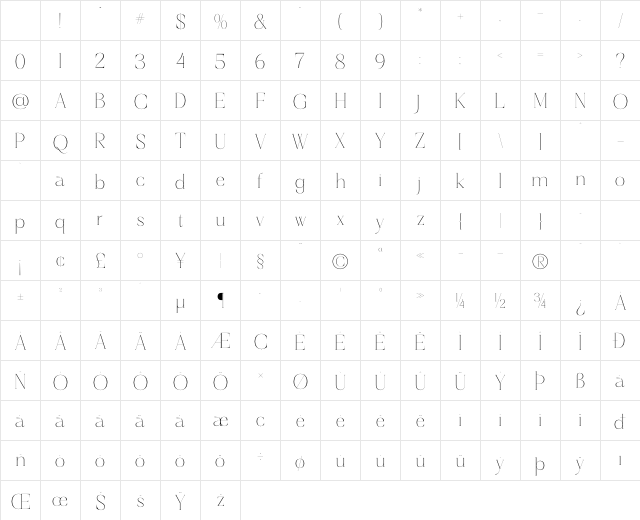
Complete Haloyen Regular glyph index. Displaying only characters natively supported by Haloyen Regular font.
Haloyen is a composed and adaptable typeface that performs quietly and consistently across a wide range of design contexts.